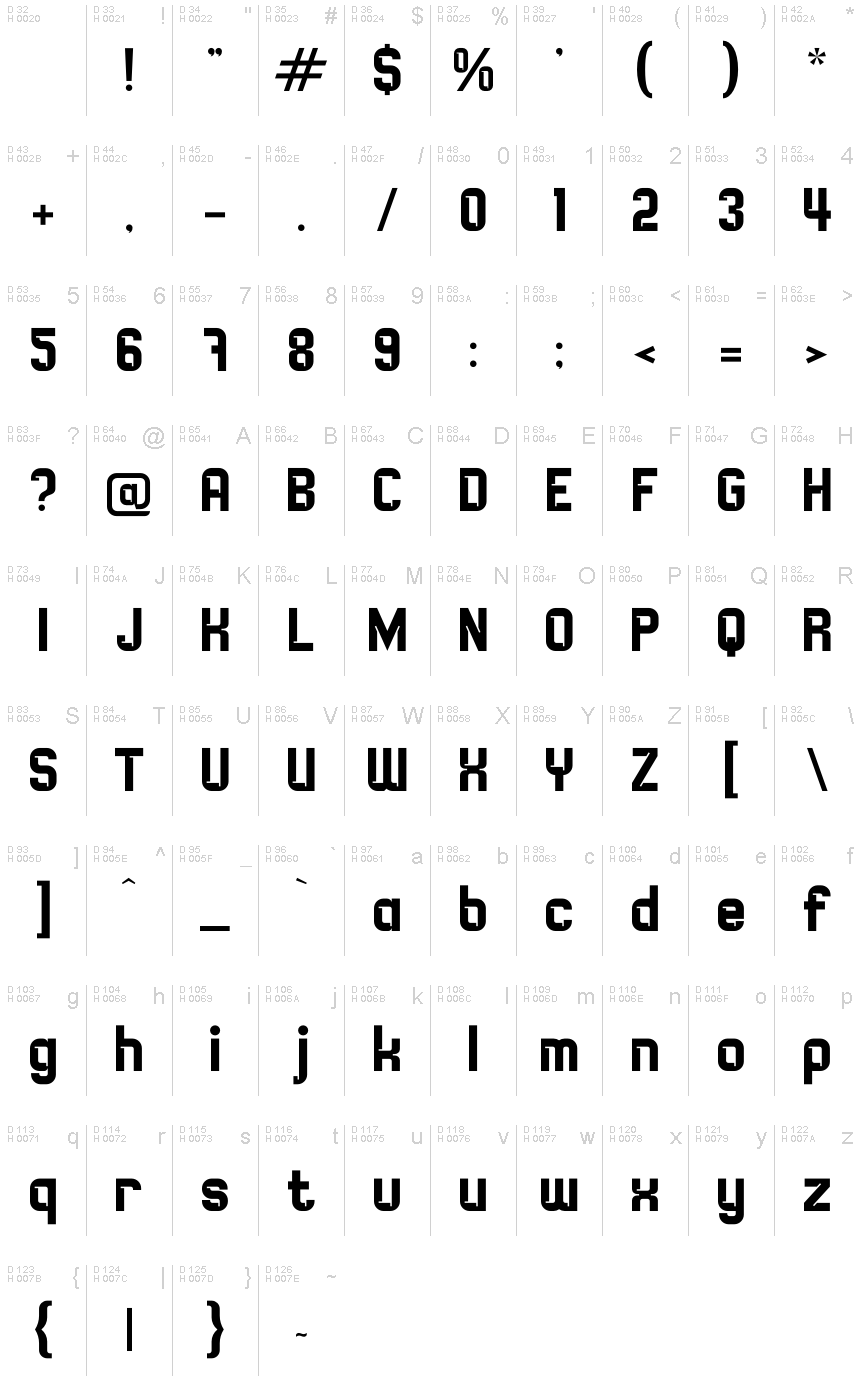
REFOLTER
Refolter captures the essence of modern design with its distinct techno flair. The font’s sleek, condensed form exudes an air of sophistication while remaining visually striking. With sharp angles and a bold presence, it commands attention, making it ideal for standout branding and promotional materials.
Its unique aesthetic allows Refolter to seamlessly transition between contemporary digital projects and eye-catching print designs. Whether applied in headline typography for tech products or as part of futuristic event invitations, this font enhances the visual narrative with its distinctive character. Embrace Refolter to infuse your designs with a sense of innovation and style that resonates across various platforms.